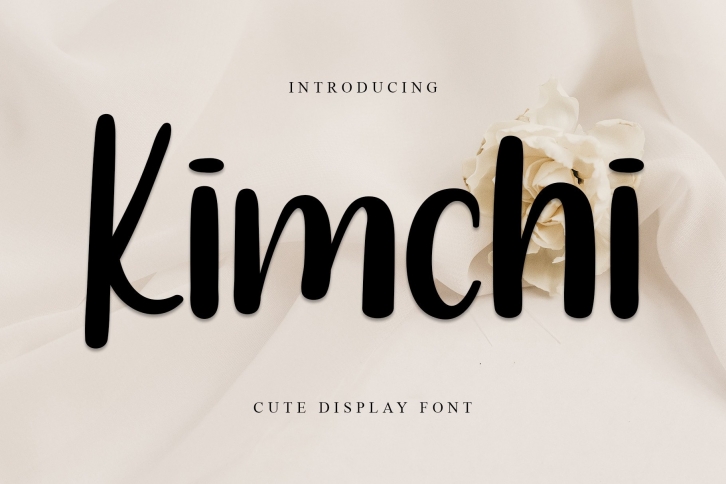
Kimchi is a cool, trendy and fun display font. Whether you are using it for cartoon-related designs, children games, quotes, titles, brand names, book covers, posters, or just any creation that requires a touch of joy, this font is a great choice.